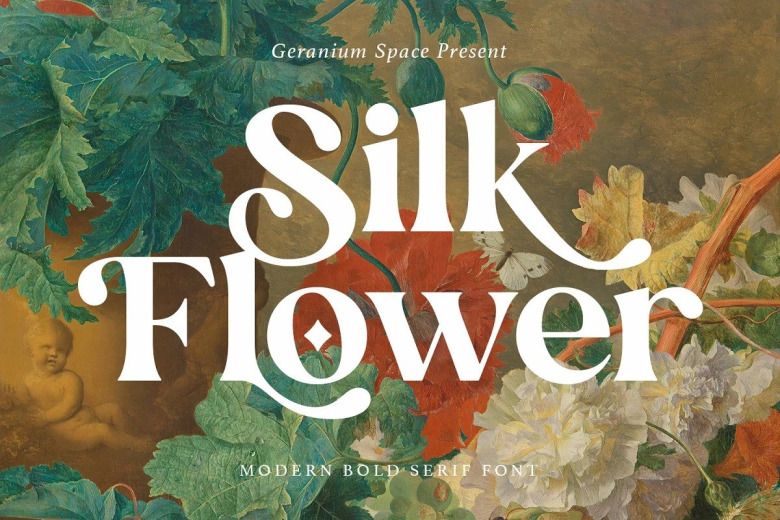
Silk Flower Font
Silk Flower is a luxury and glamour serif typeface from designer Megi Satyo Widodo. This typeface is rich in stylish ligatures inspired by fashion magazines and fragrance brands. Marvella come with 3 versions, outline, regular & slant.
“Silk Flower” is perfect for web design, branding, logos, invitations, magazines, and more.